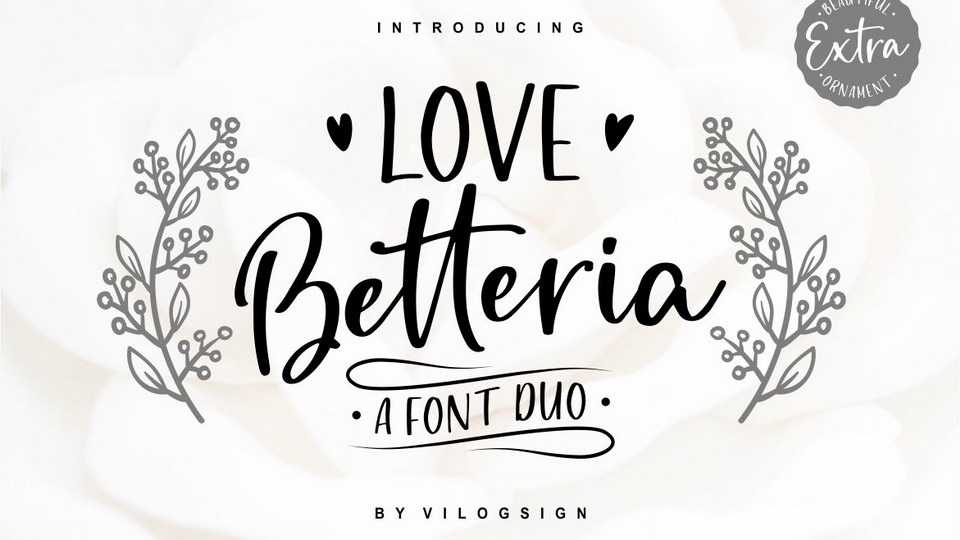
Download Love Betteria font, a playful calligraphy script and sans that comes to life as if you are writing it yourself. Love Betteria looks cute, natural, modern, classic and elegant, very suitable to make a branding, magazine, fashion, quotes, logo, packaging, and other.